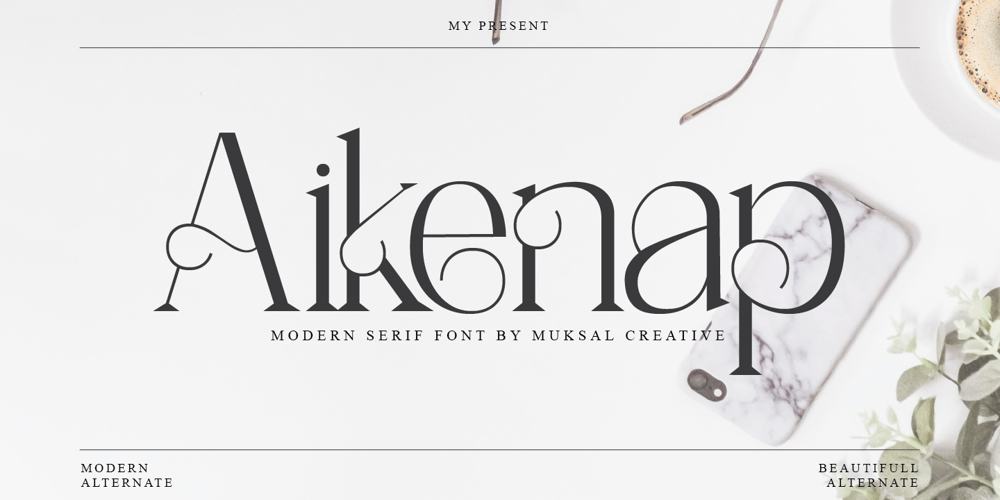
Aikenap Font Family was designed by Muksalmina and published by Muksal Creatives. Aikenap contains 1 styles and family package options. Aikenap Modern serif typeface with beautiful alternete, special glyphs, ornament and multilingual support. It’s a very versatile font that works great in large and small sizes. Perfect for editorial projects, Logo design, Clothing Branding, product packaging, magazine headers, or simply as a stylish text overlay to any background image.Features:Lowercase and UppercasealterneteNumerals & PunctuationAccented charactersMultiple Languages Supported